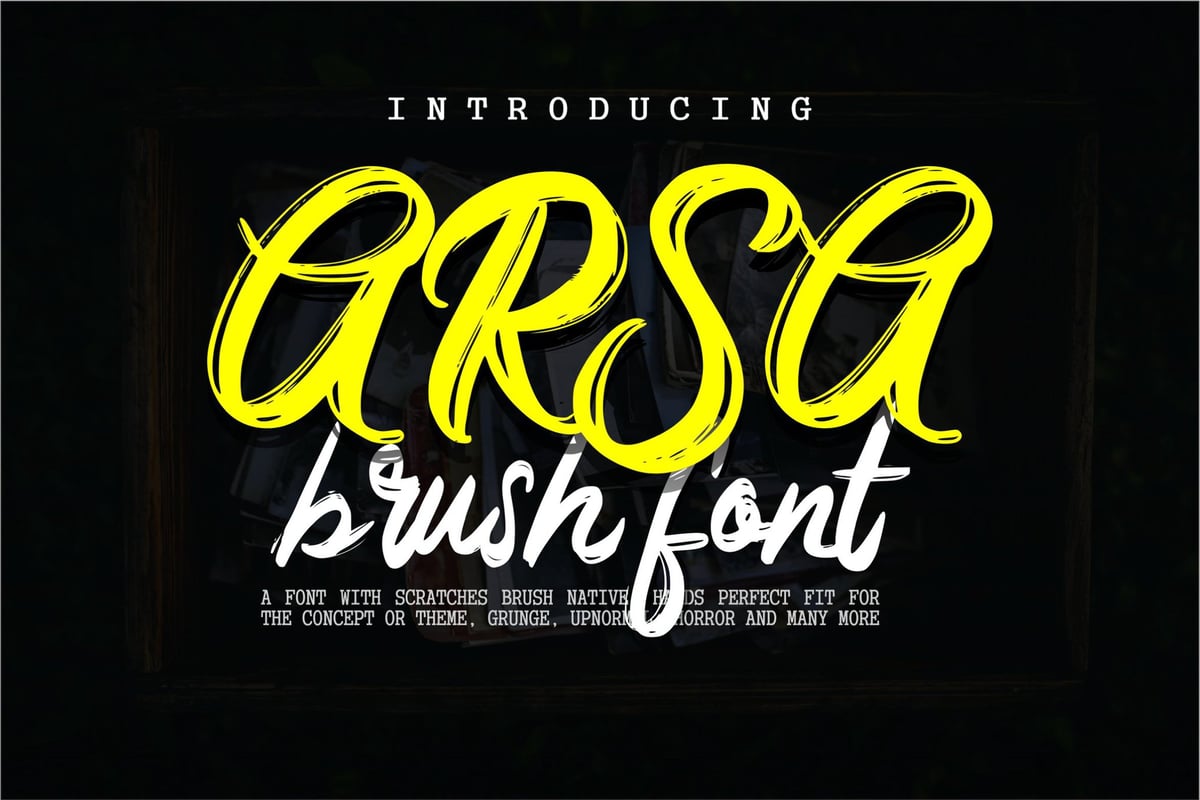
Free Arsa - Brush Font
A raw, expressive brush script built for bold branding, stunning invitations, and standout designs.
Arsa is a scratch-textured brush font with a natural, hand-painted feel — perfectly suited for grunge, uptown, horror, and other edgy creative themes. Its fluid strokes and rugged character make it just as beautiful on elegant wedding invitations as it is on gritty poster art.
Arsa works beautifully across a wide range of projects, including:
- Greeting cards and invitations
- Branding materials and logos
- Business cards
- Quotes and poster designs